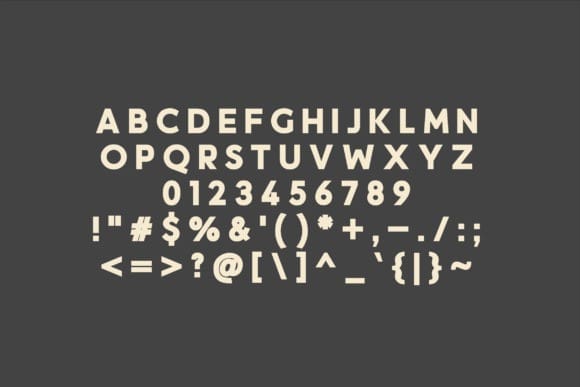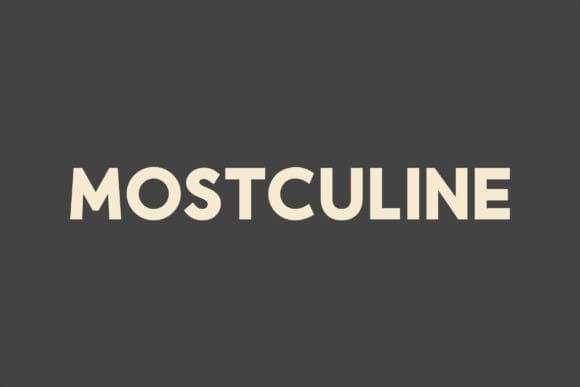
Mostculine Font
Mostculine Font is a versatile, modern, and classy sans serif font perfect for logos, weddings, invitations, quotes, advertisements, print, magazines, and more. Add it to your most creative ideas, and notice how it makes them come alive!